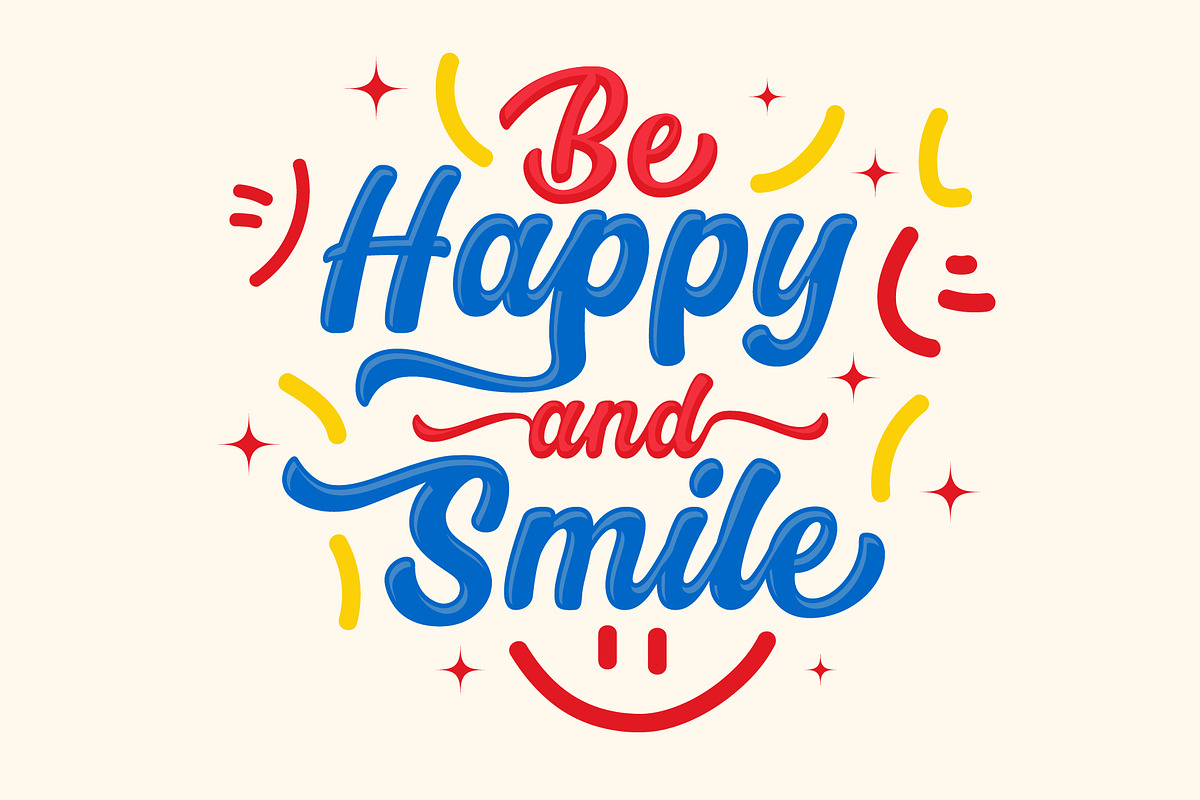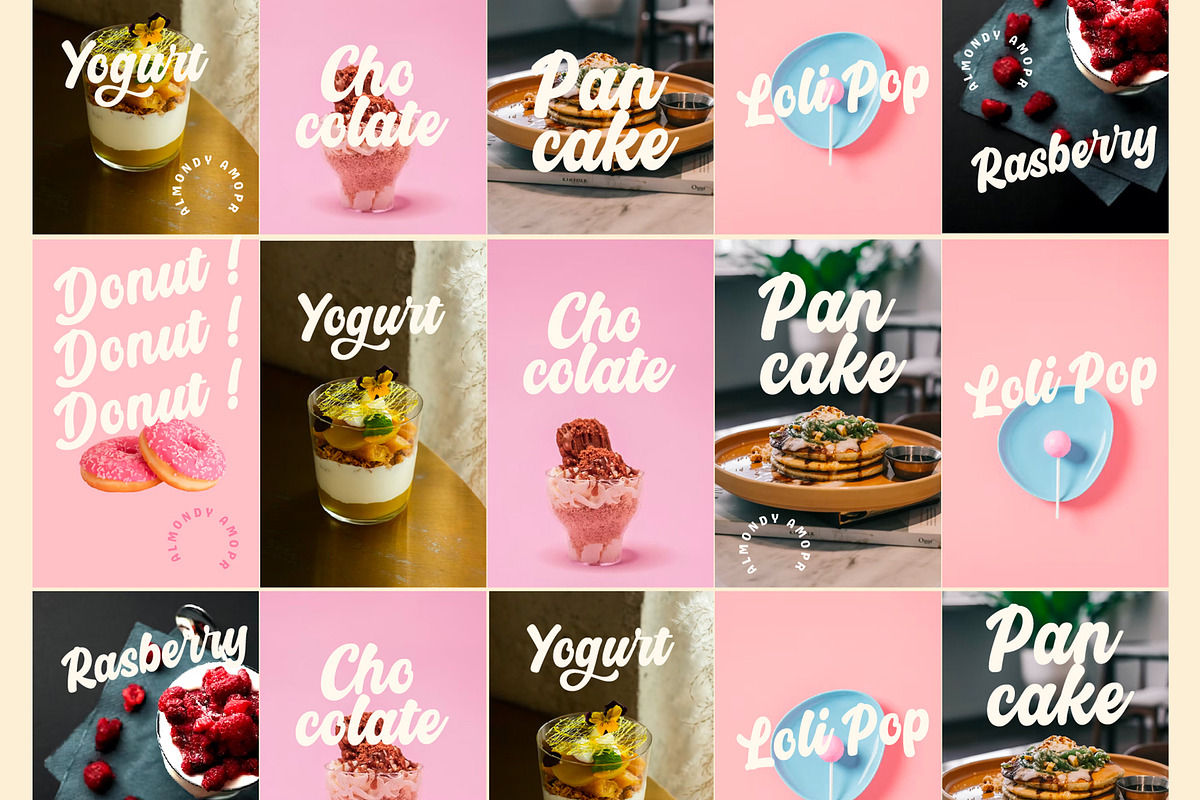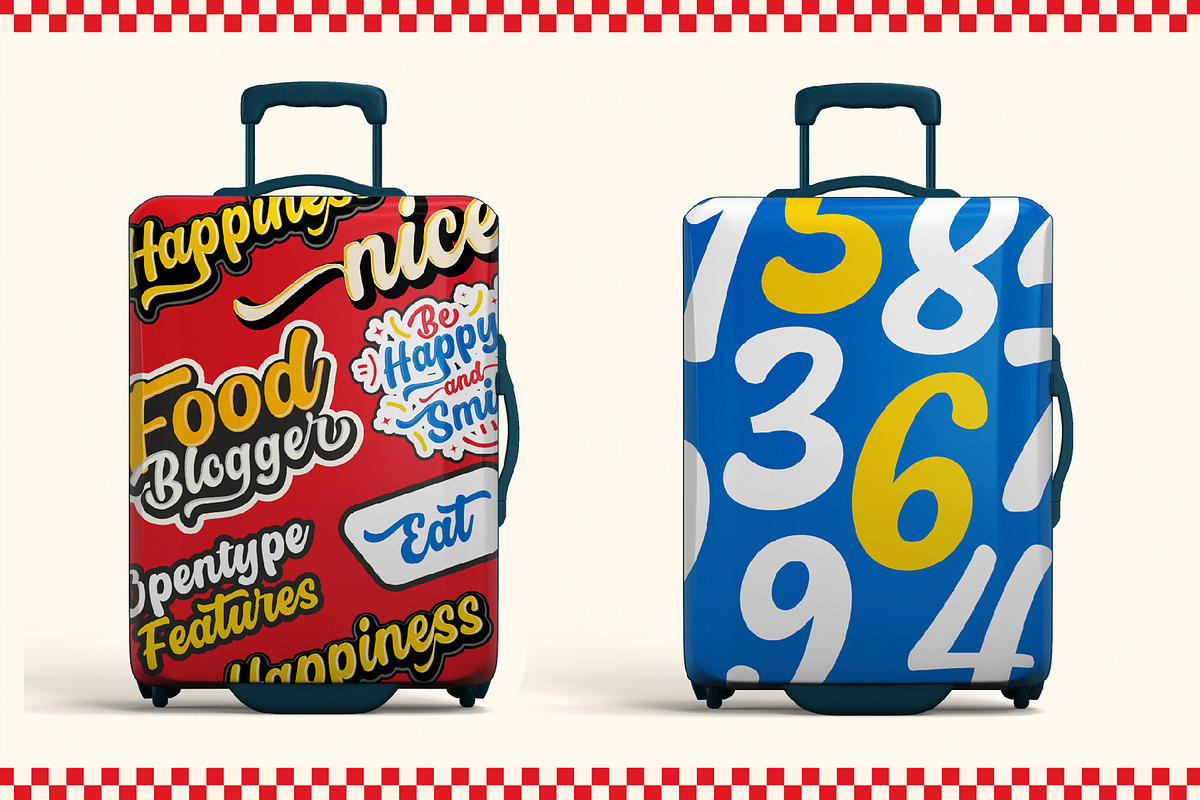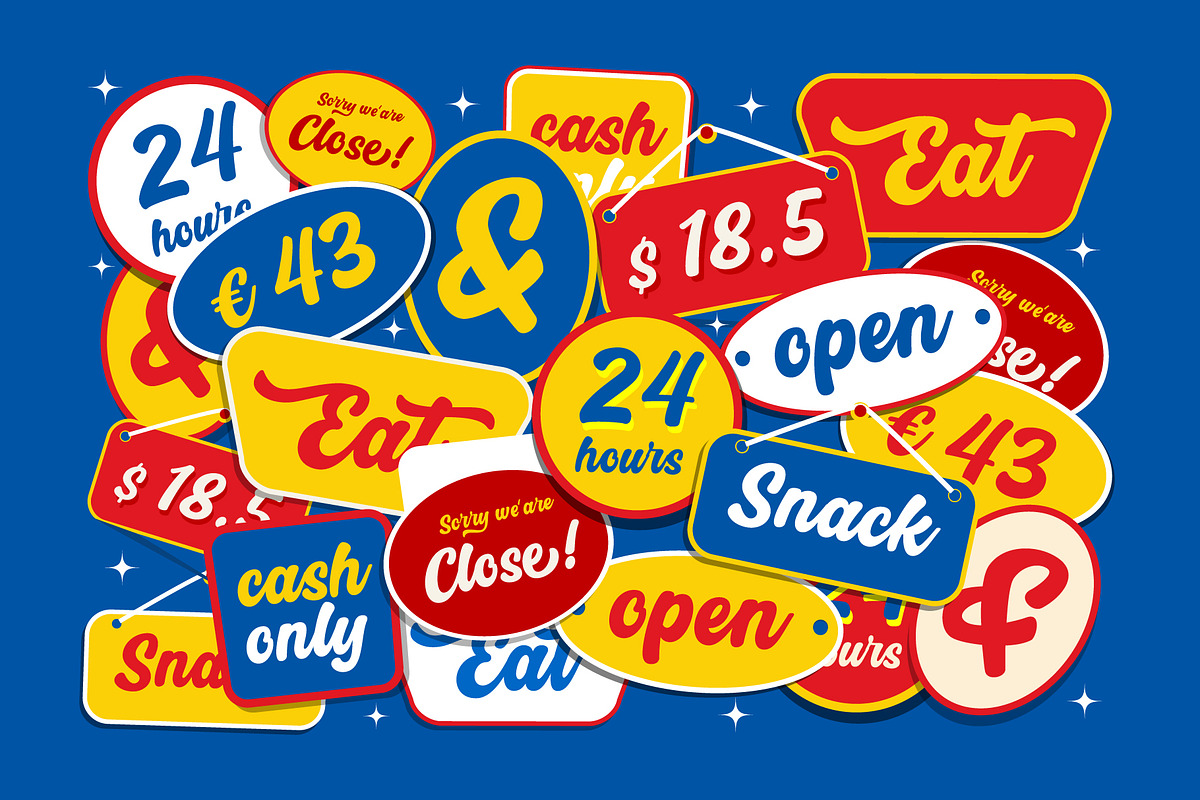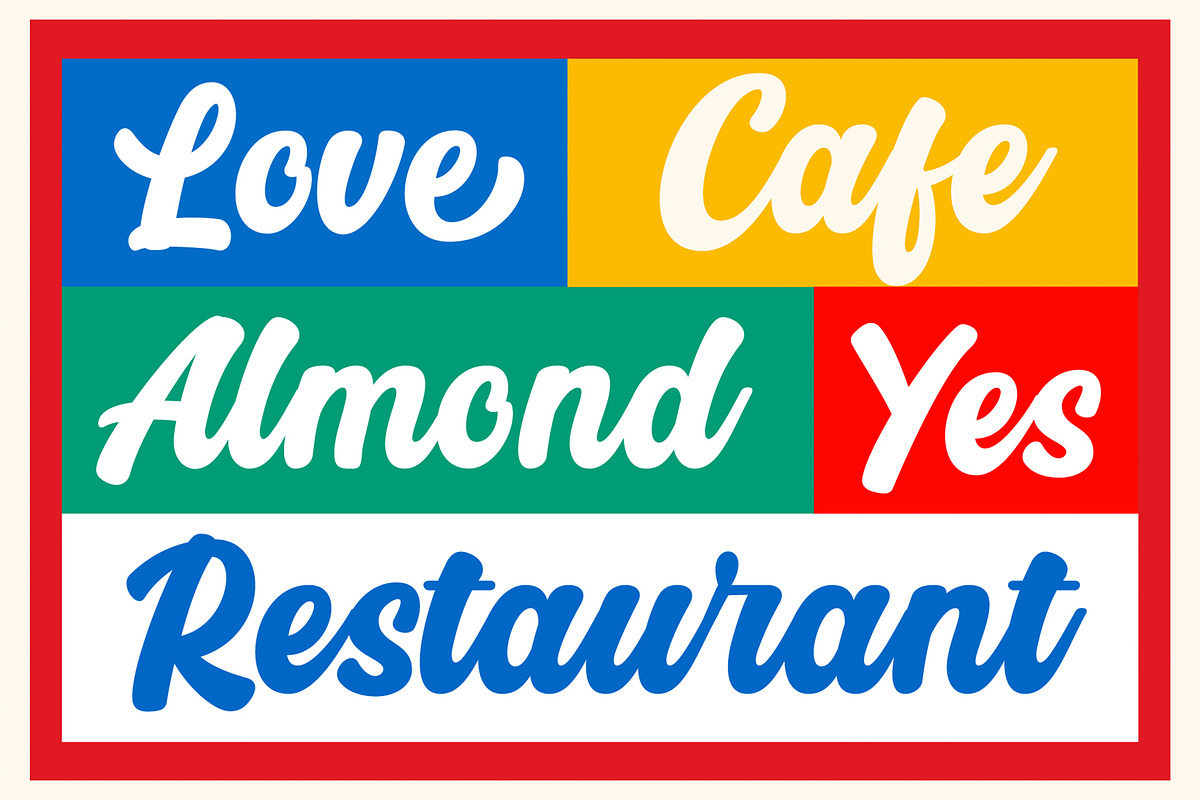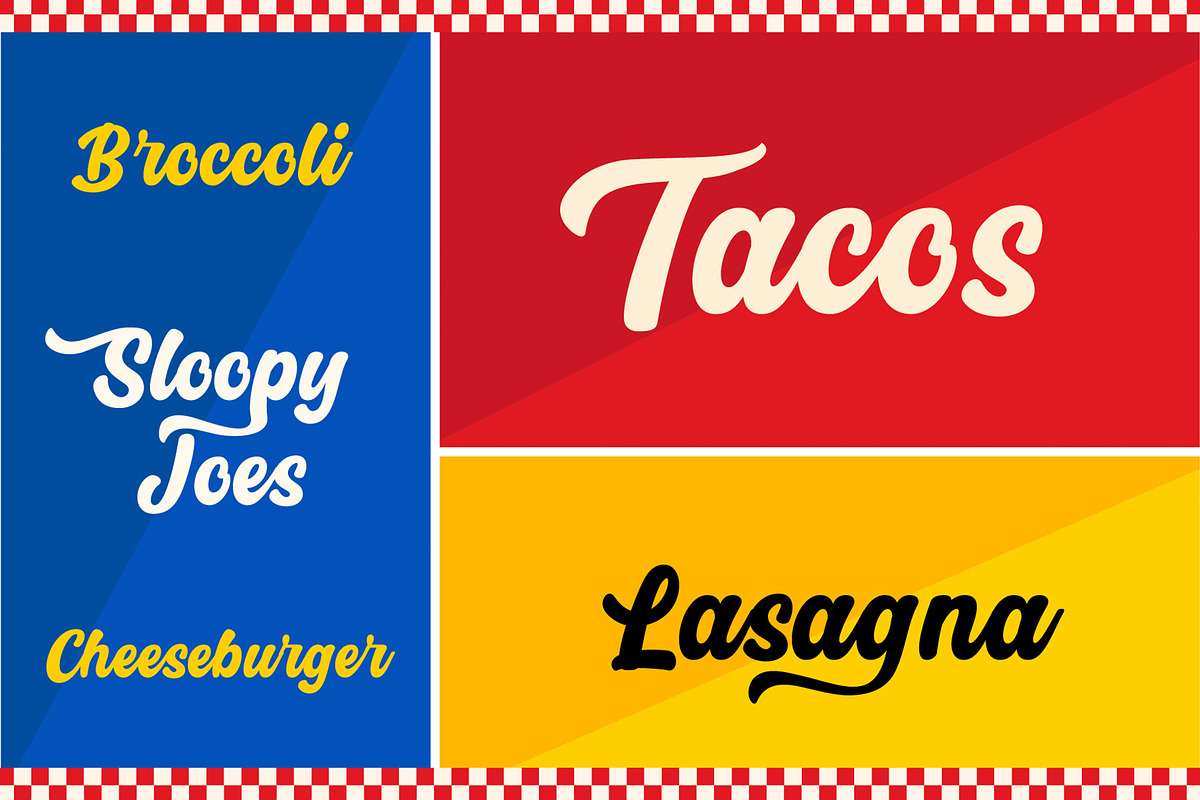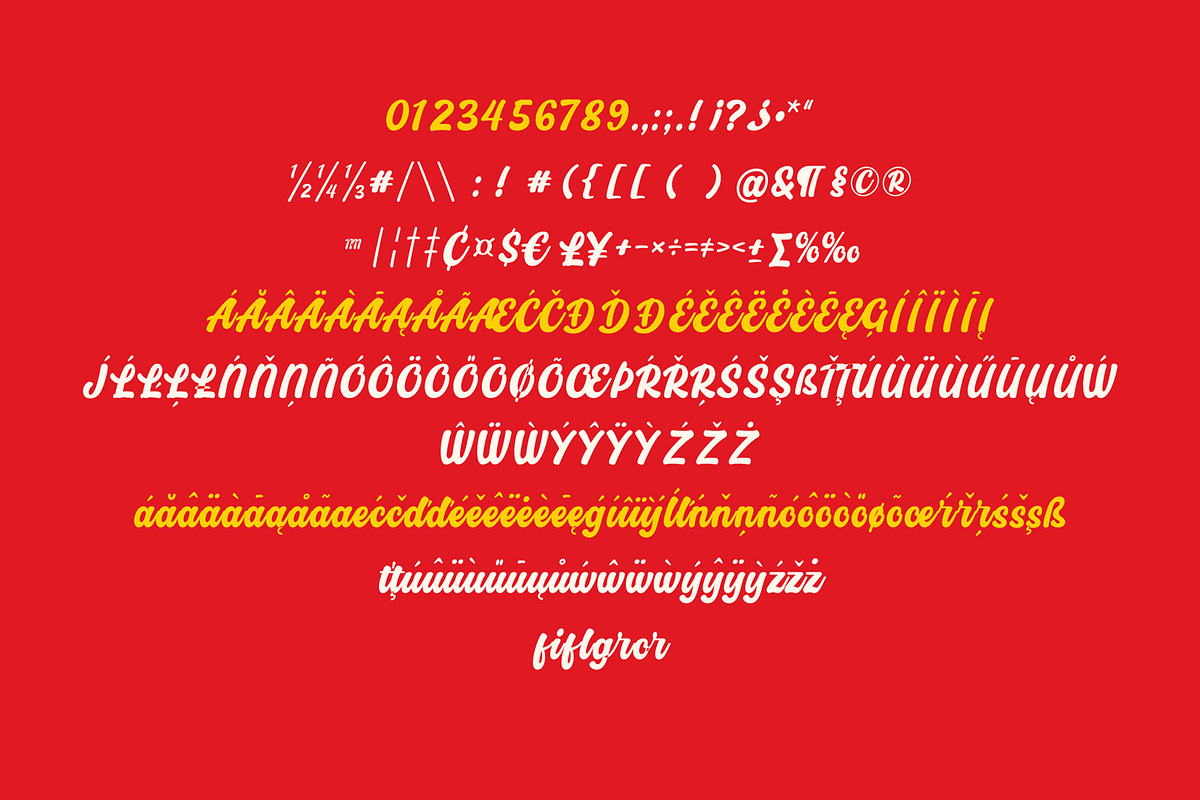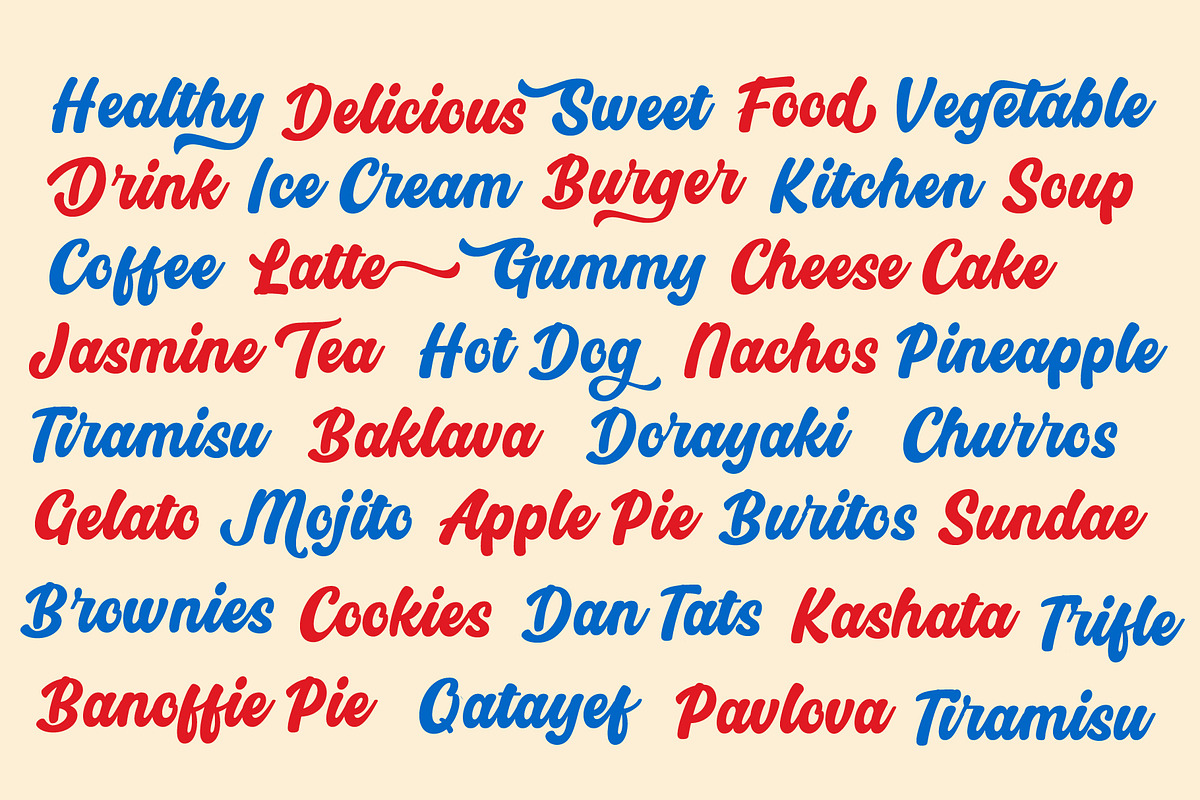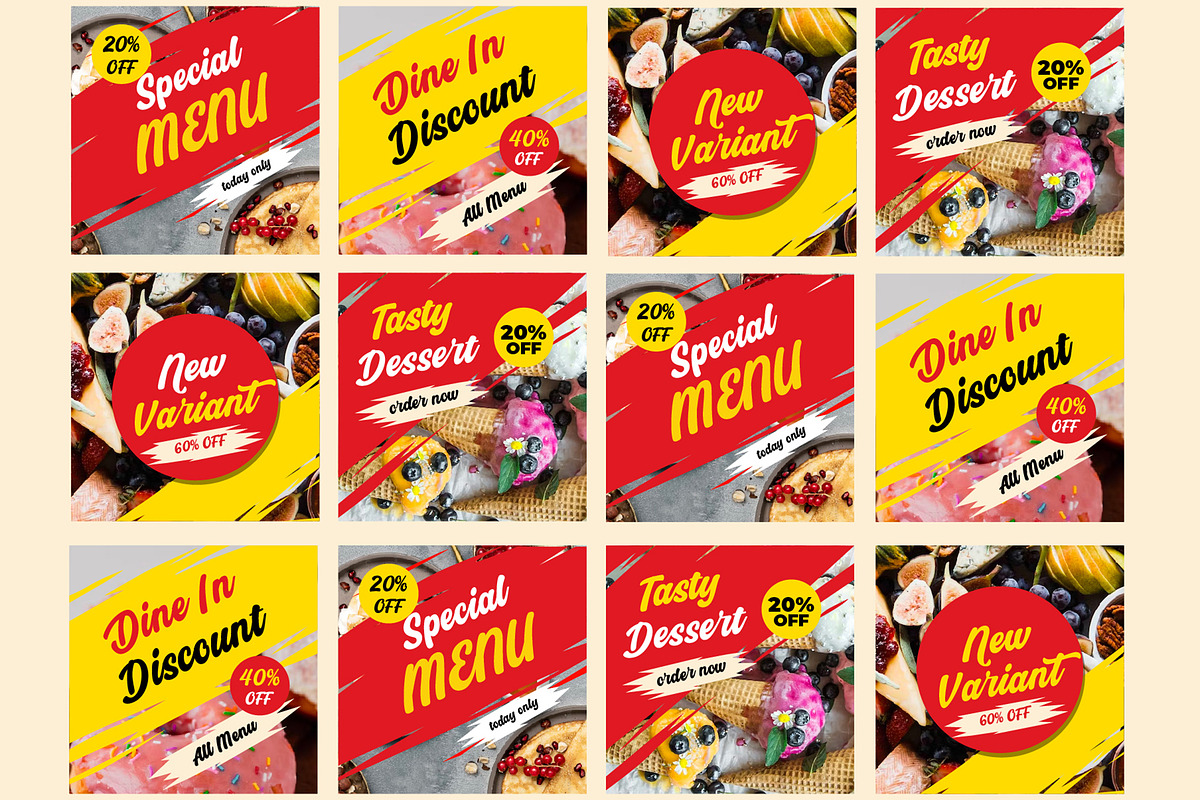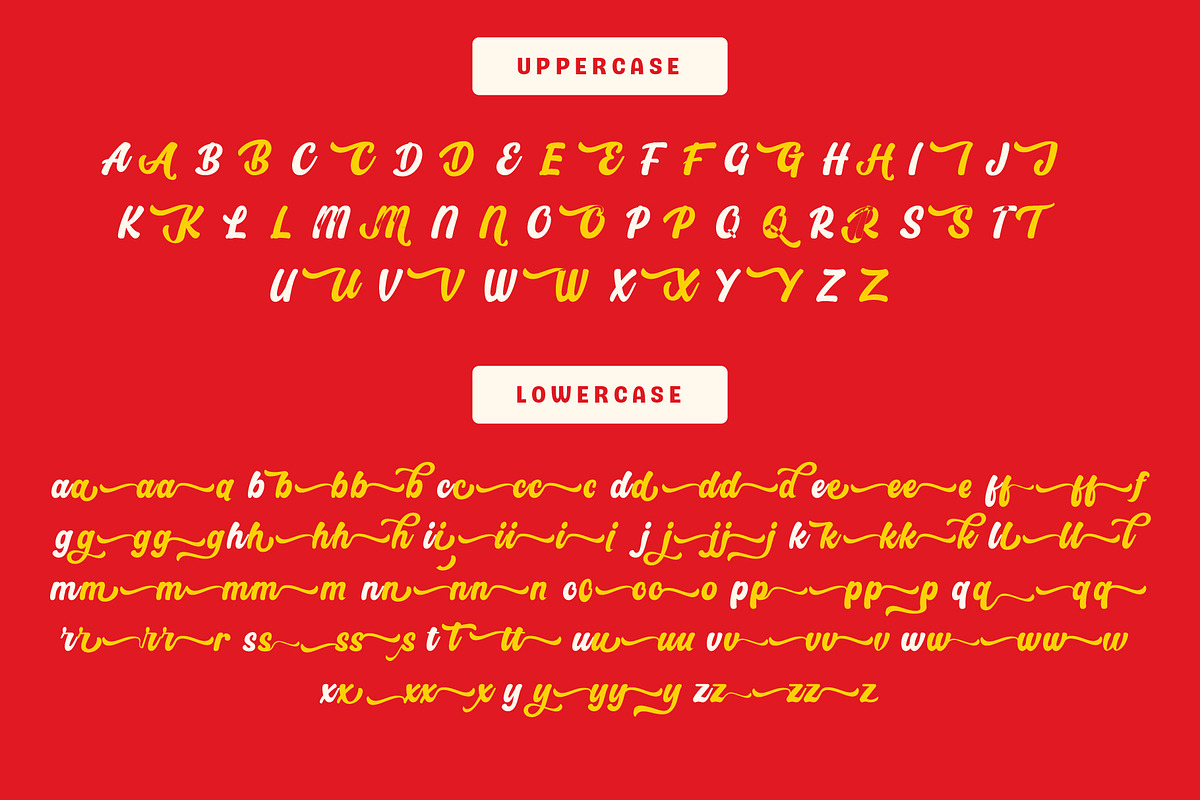
Almondy Amor | Playful Display Font
Almondy Amor Script, A new carefully crafted fun script Typeface. The Ideas of this fonts are from wide range of reference, Dessert & Beverages are our main focus for this fonts. So the looks of this fonts must be in the wide range of the reference above. It’s Versatile, Fun, Cute and Beauty feel that you get in Almondy Amor Typefaces.
Thjis typeface on the display to give you a reference what it looks like on your project. such as Branding, Header, Logotype, Poster, Magazine, Packaging, Food Menus, restaurant and etc.